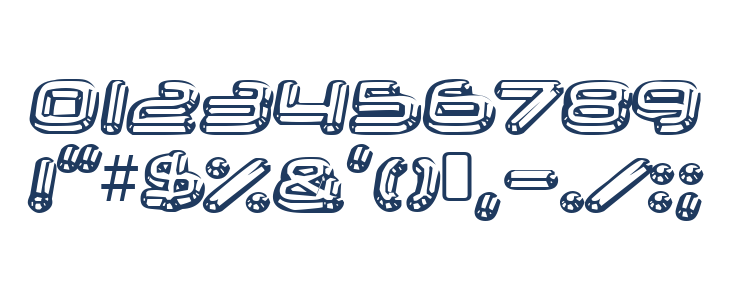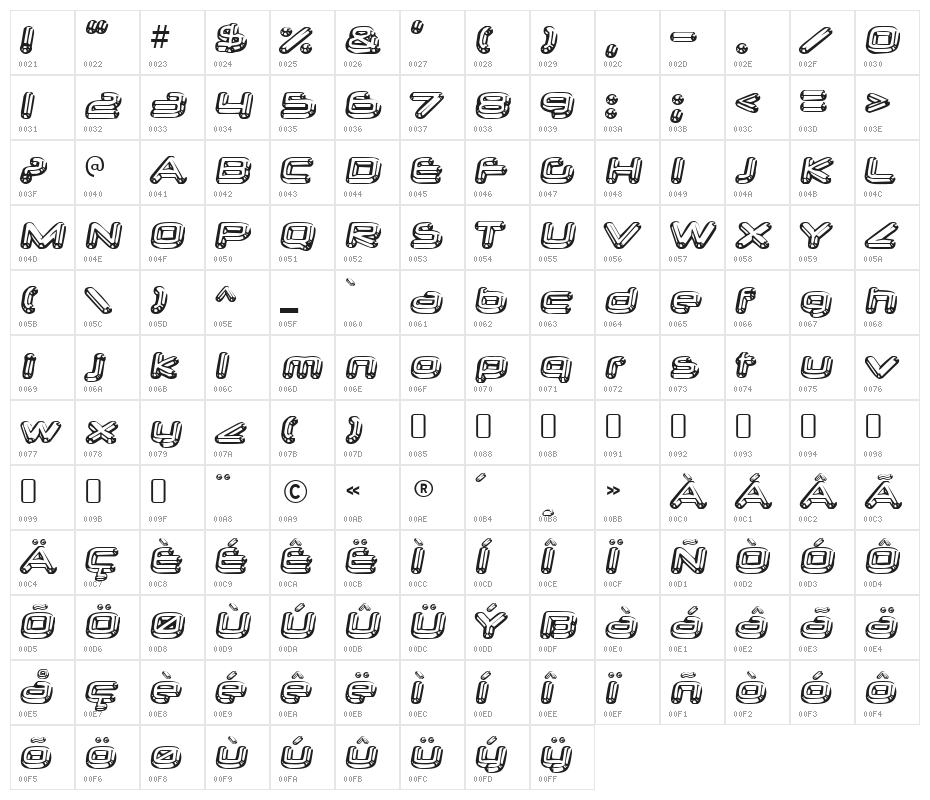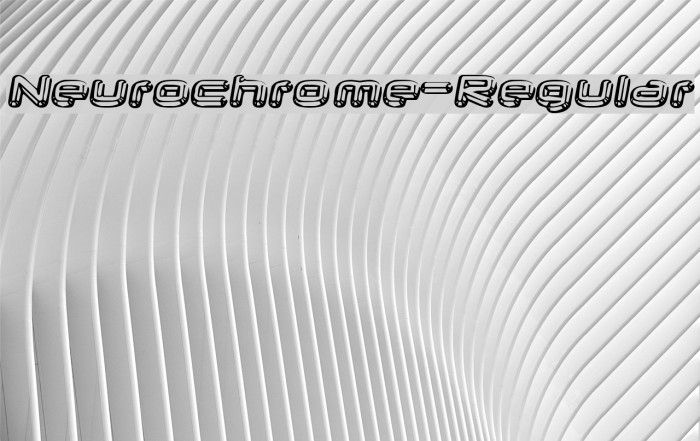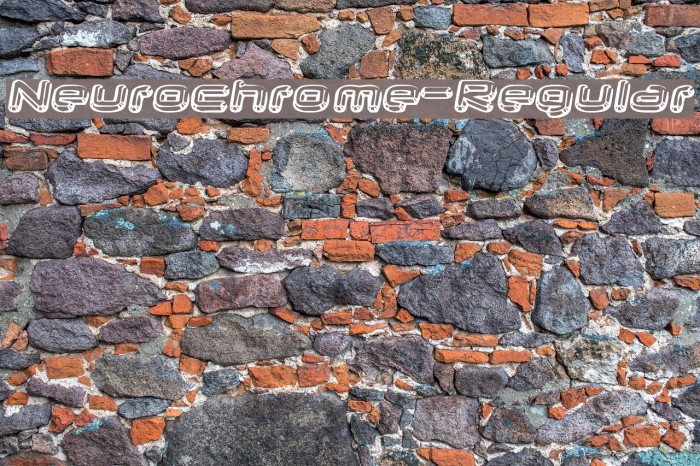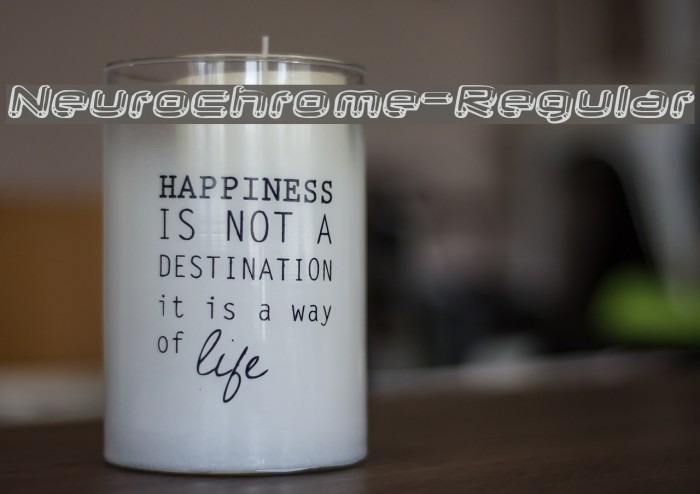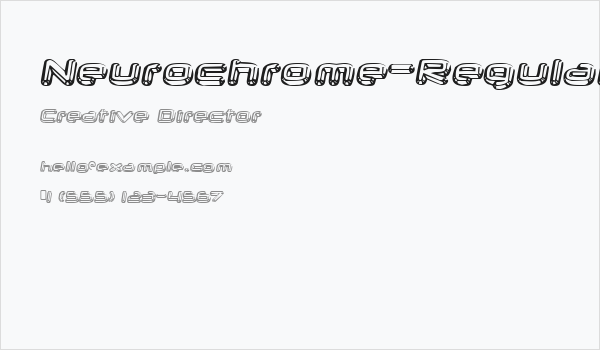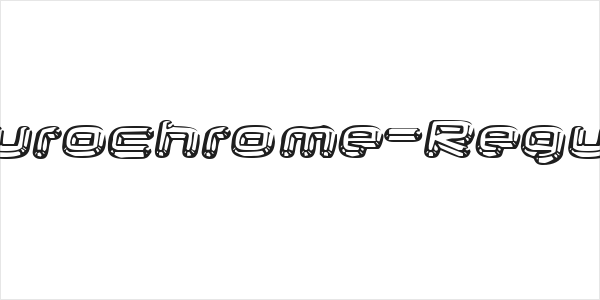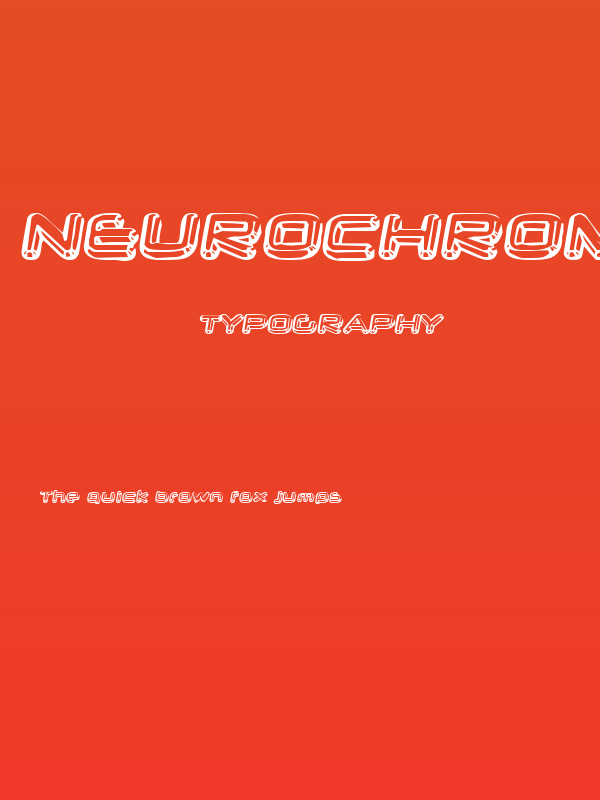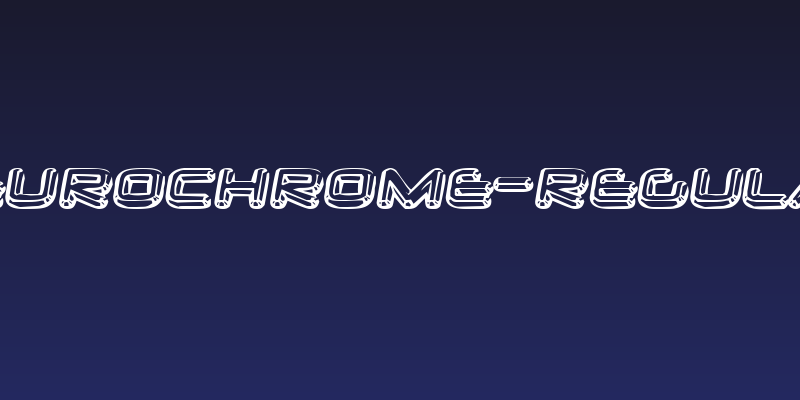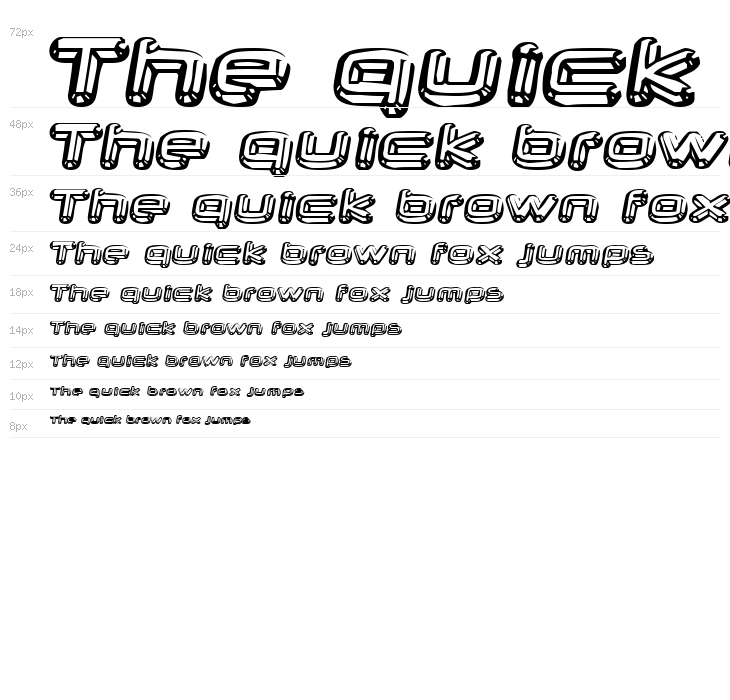
Neurochrome-Regular Font
Neurochrome-Regular Description
This font features a futuristic and bold design with a three-dimensional effect. Each character is outlined with a thick black border, giving it a striking and dynamic appearance. The letters are slightly slanted, adding a sense of movement and modernity. The interior of each character is filled with a white space, creating a contrast that enhances readability. The font maintains a consistent style across uppercase, lowercase, numerals, and special characters, making it versatile for various design needs. Its unique style is reminiscent of digital or sci-fi themes, making it ideal for projects that require a modern and edgy look.
| Proposed Projects | Ideal for sci-fi themed designs, video game titles, tech branding, and modern posters. |